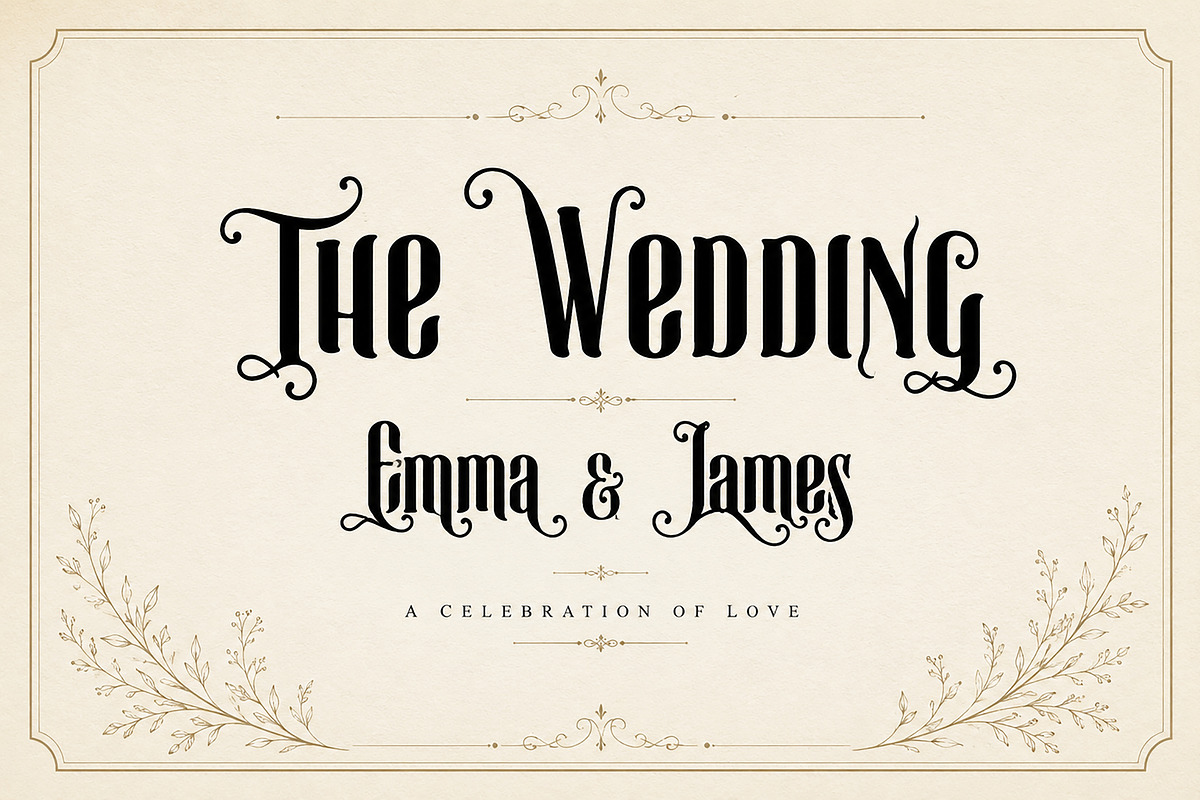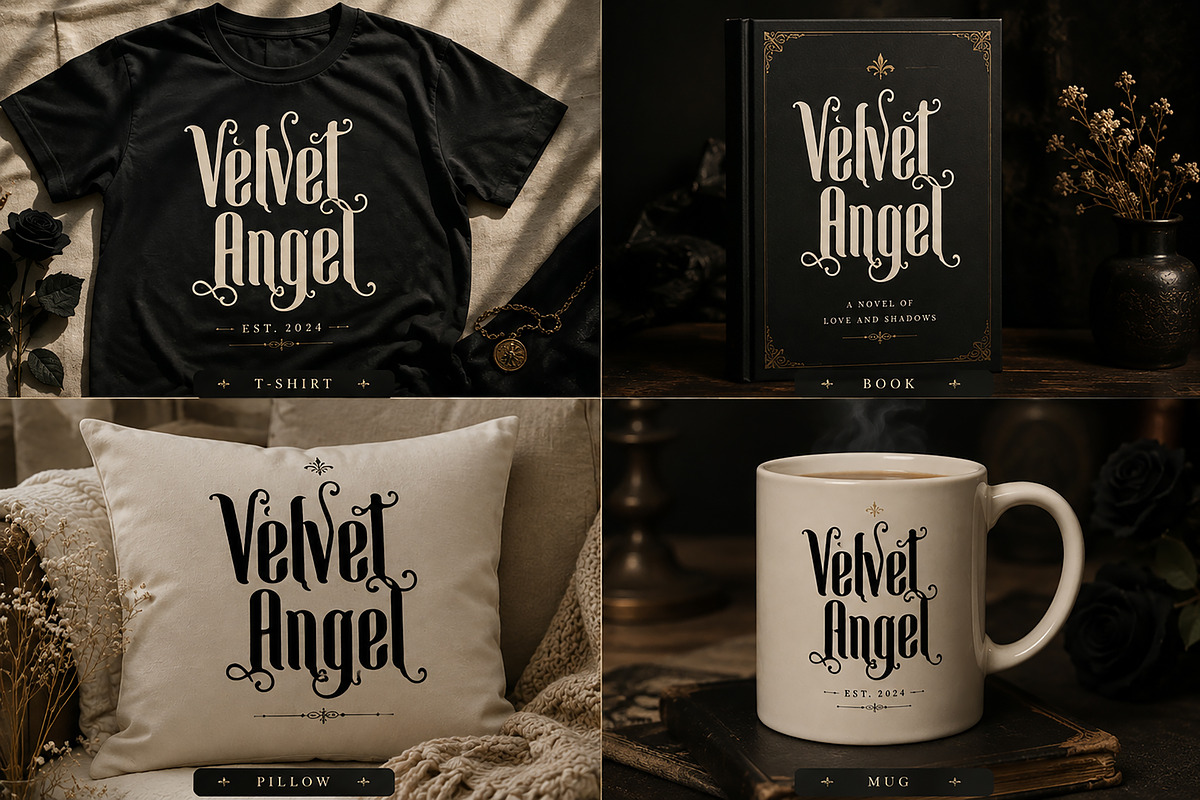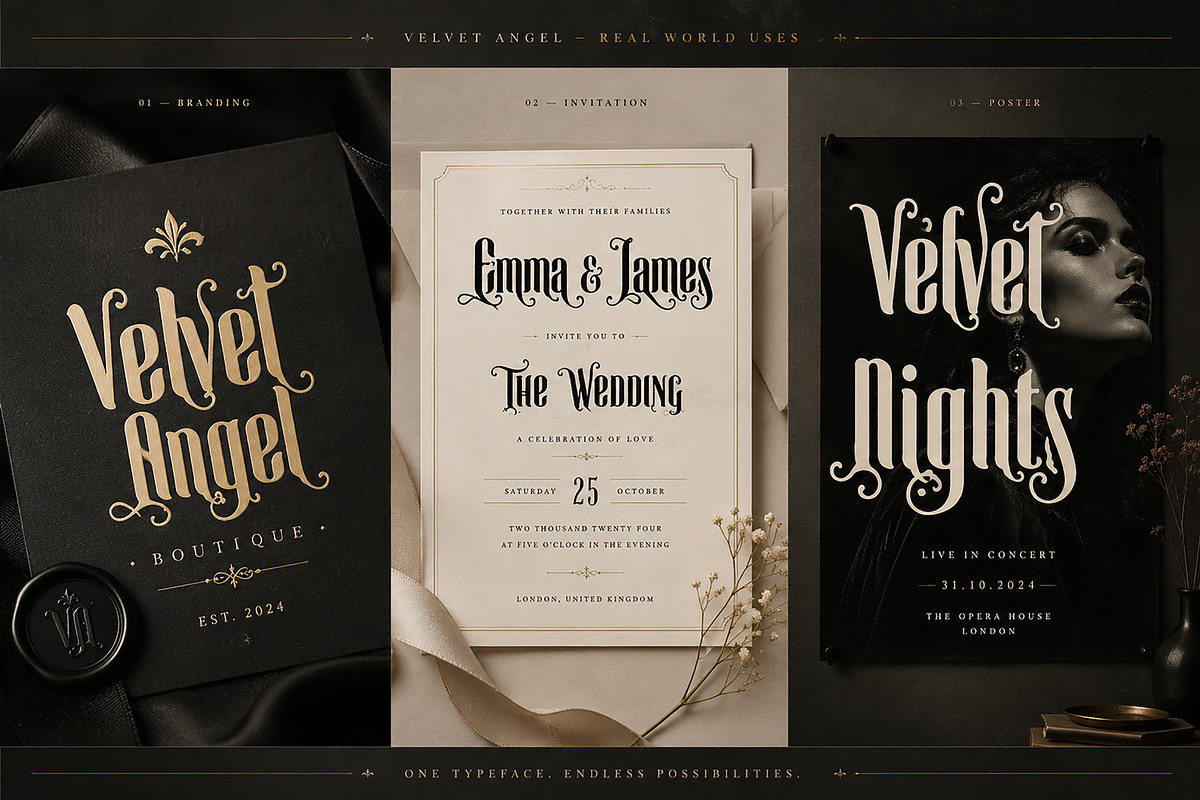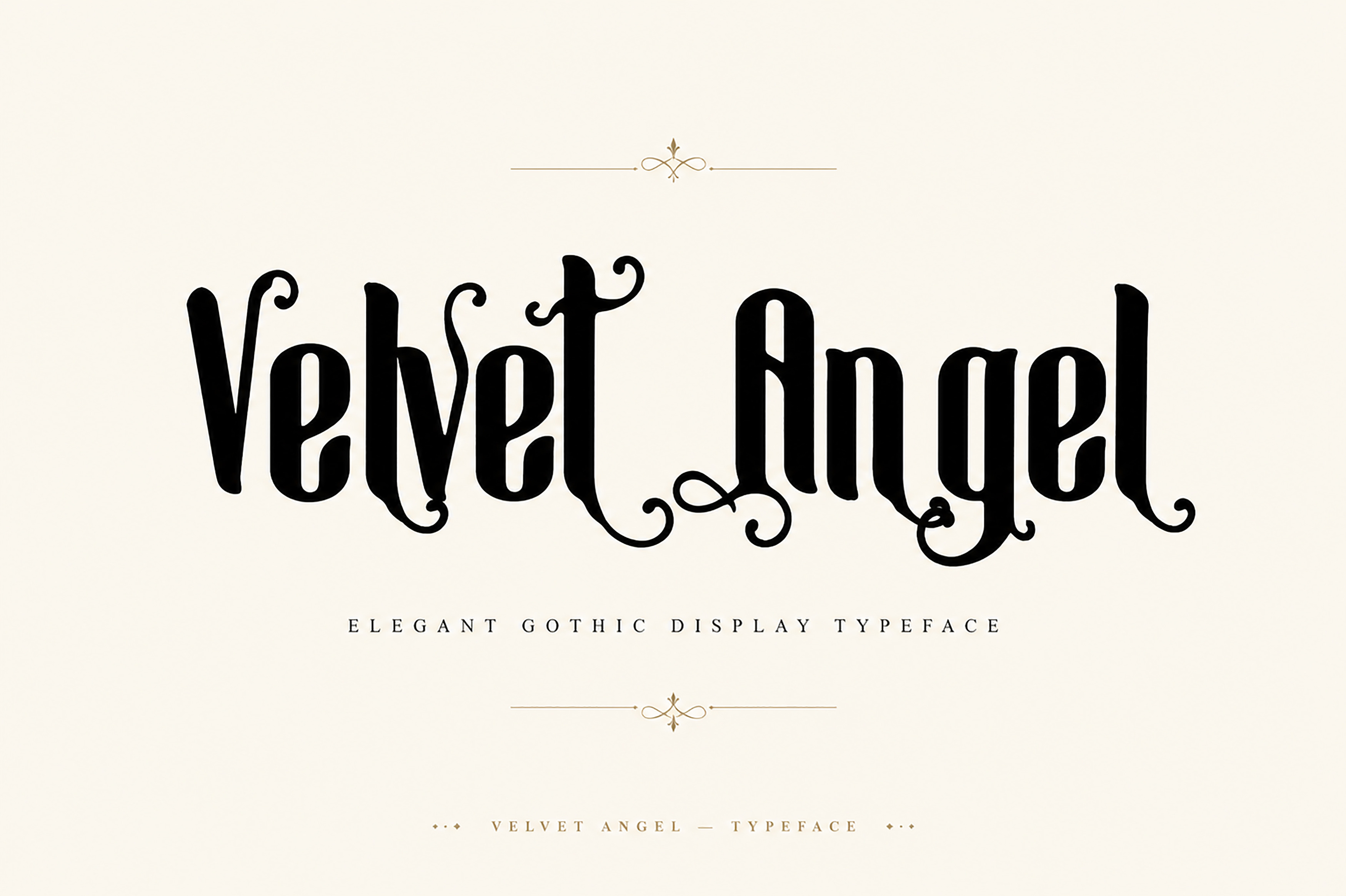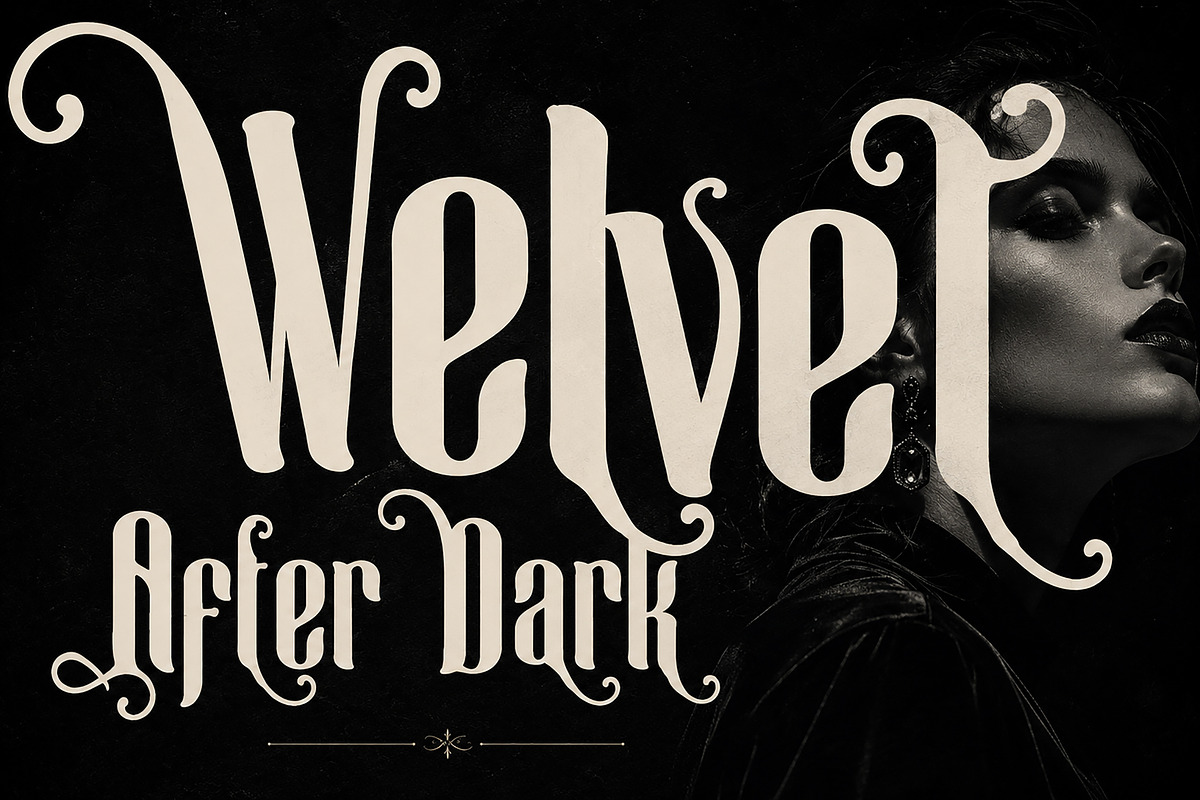
Velvet Angel – Elegant Display Font
Velvet Angel – Elegant Gothic Display Font
Bring a touch of dark romance, vintage elegance, and sophisticated gothic character to your designs with Velvet Angel.
Velvet Angel is an expressive decorative display typeface featuring dramatic letterforms, elongated strokes, and beautiful ornamental swashes. Its distinctive style is perfect for creating memorable typography with a luxurious and mysterious atmosphere.
Designed to make a strong visual impact, Velvet Angel works beautifully for fashion branding, luxury logos, wedding invitations, stationery, posters, book covers, apparel, packaging, editorial designs, album artwork, and social media graphics.
Whether you are creating a romantic wedding design, an elegant boutique identity, a vintage-inspired poster, or a dramatic fashion project, Velvet Angel adds a unique handcrafted gothic personality to your work.
Luxury Branding & Logos
Fashion & Editorial Designs
Wedding Invitations & Stationery
Posters & Wall Art
Book Covers & Titles
T-Shirt & Apparel Designs
Packaging & Product Design
Boutique & Beauty Branding
Album & Cover Artwork
Vintage & Gothic Designs
Quotes & Decorative Typography